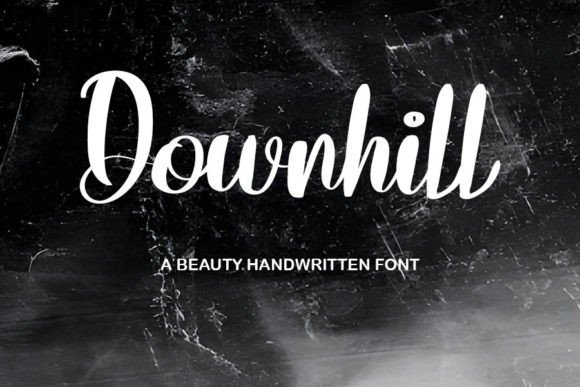
Immerse yourself in the enchanting world of Downhill, a script font that embodies the essence of romance and delicacy. Crafted by the talented hands of Peroscope Design, this font is a masterpiece of artistry, specifically designed to evoke emotions and add a touch of magic to your creative projects.
With its elegant swirls and graceful curves, Downhill is a script font like no other. It possesses an inherent charm that effortlessly elevates the beauty of any design, making it the perfect choice for those seeking to convey a sense of romance, joy, and sophistication. Whether you're designing wedding invitations, cards, or any project that calls for a personalized touch, Downhill will undoubtedly leave a lasting impression.
Step into the world of Downhill and discover a realm where creativity and elegance intertwine. Its beauty lies not only in its visual appeal but also in its versatility. Downhill seamlessly blends with a myriad of design styles and themes, making it a font that transcends time and trends. Whether you're crafting rustic invitations, whimsical cards, or modern social media graphics, Downhill's enchanting allure will captivate your audience and leave them spellbound.
Indulge in the delight of Downhill, a font that captivates the heart and stirs the soul. Its exquisite design is a testament to the art of calligraphy, evoking a sense of nostalgia and timeless elegance. Experience the joy of creating designs that resonate with your audience, leaving an indelible mark on their hearts and minds.
Embrace Downhill, the font that ignites your imagination and transforms your creative visions into reality. Its enchanting nature will add a touch of magic to your designs, making them stand out from the crowd and leaving a lasting impression on all who behold them. Downhill is more than just a font; it's an experience that will redefine your creative journey.